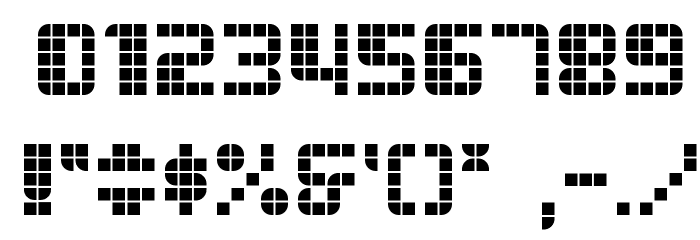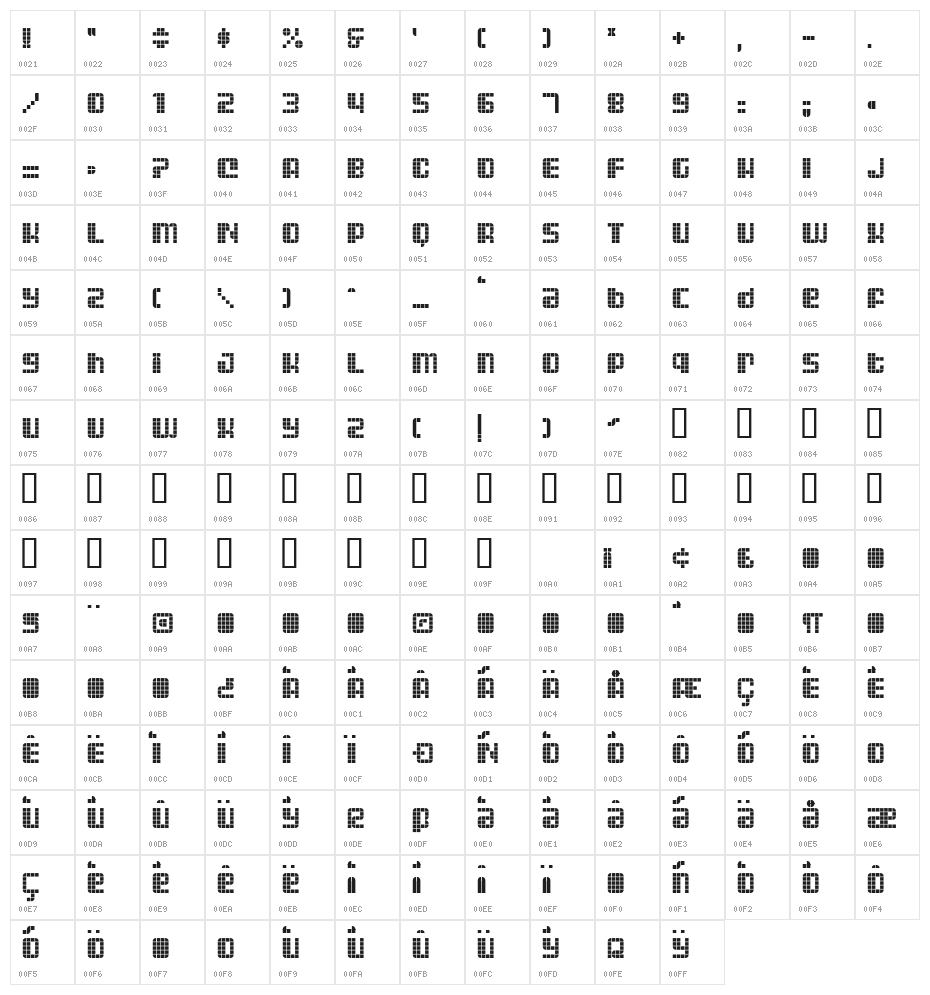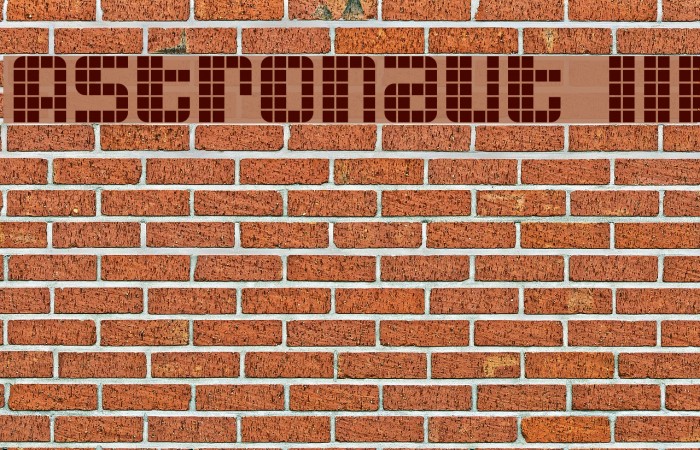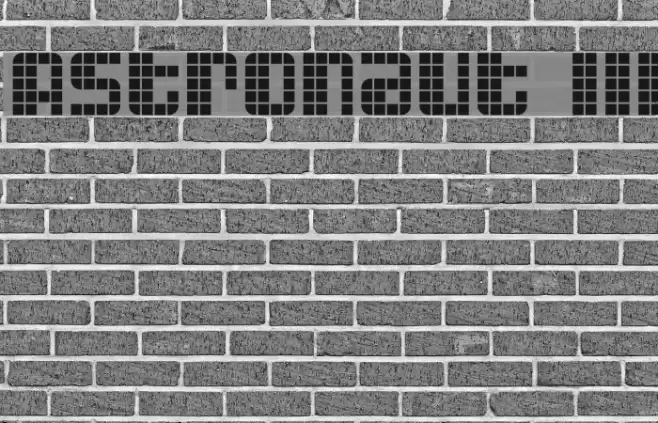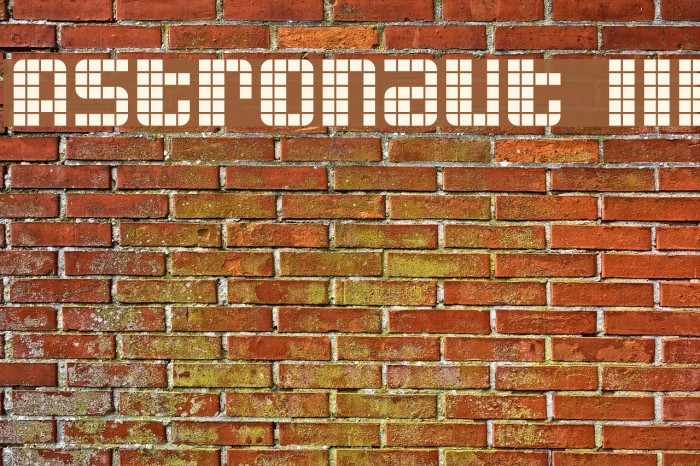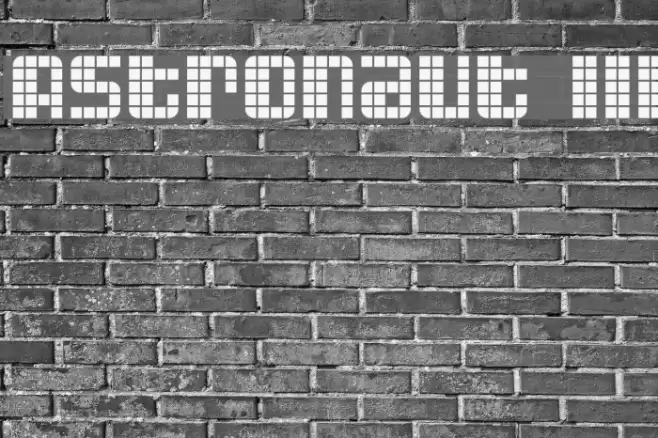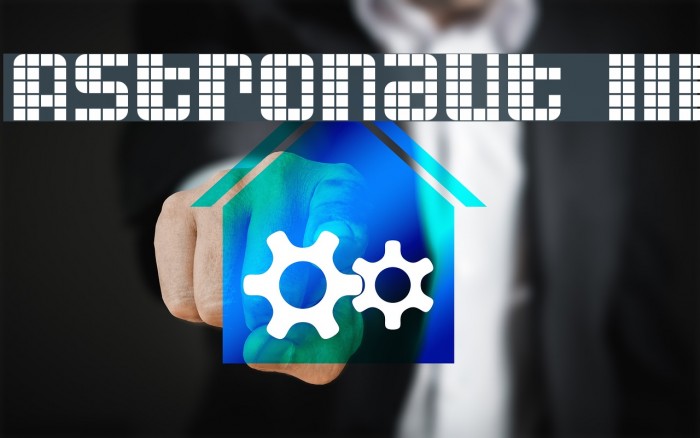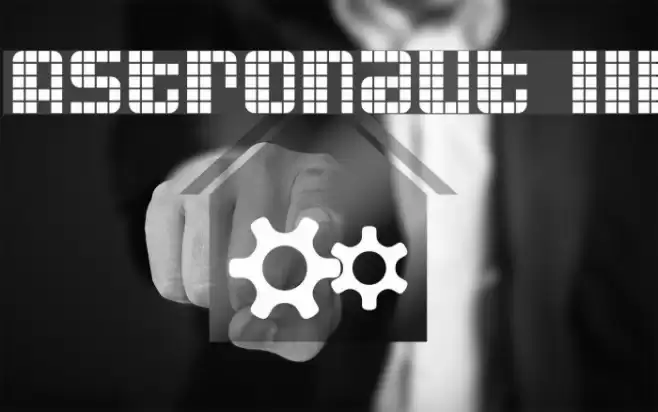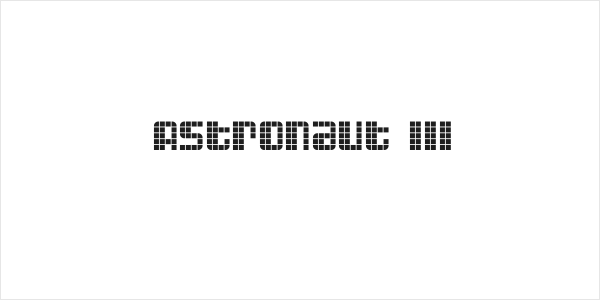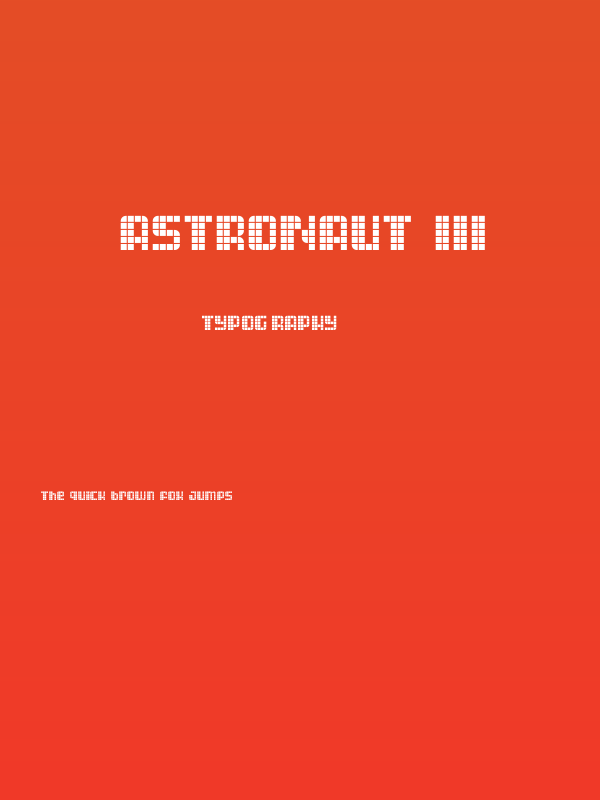
Astronaut III Font
Astronaut III Description
This font features a unique, futuristic design composed of small square blocks forming each character. The geometric structure gives it a digital, pixelated appearance, reminiscent of early computer graphics or digital displays. Each letter and number is constructed with a consistent grid pattern, providing a uniform and cohesive look. The font's boldness and distinct style make it stand out, ideal for projects that require a modern, tech-savvy aesthetic. The characters are evenly spaced, ensuring readability while maintaining the font's distinctive style.
Proposed ProjectsIdeal for digital art, tech-themed posters, video game graphics, and modern branding.